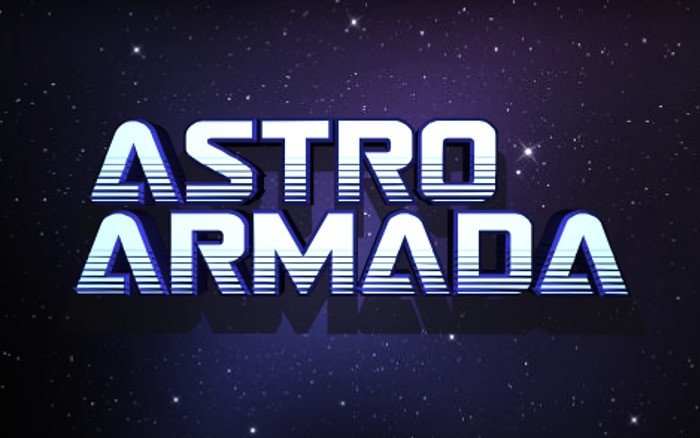
Astro Armada Display Font
Astro Armada Display Font is a gorgeous font that is both classically elegant and inherently modern. This typeface comes with the following 28 versions: Regular, Italic, Semi-Italic, Super-Italic, Leftalic, Semi-Leftalic, Condensed, Condensed Italic, Condensed Semi-Italic, Expanded, Expanded Italic, Expanded Semi-Italic, Outline, Outline Italic, Outline Semi-Italic, 3D, 3D Italic, Gradient, Gradient Italic, Gradient 2, Gradient 2 Italic, Haltone, Halftone Italic, Twotone, Twotone Italic, Title, Title Italic and Title Semi-Italic.